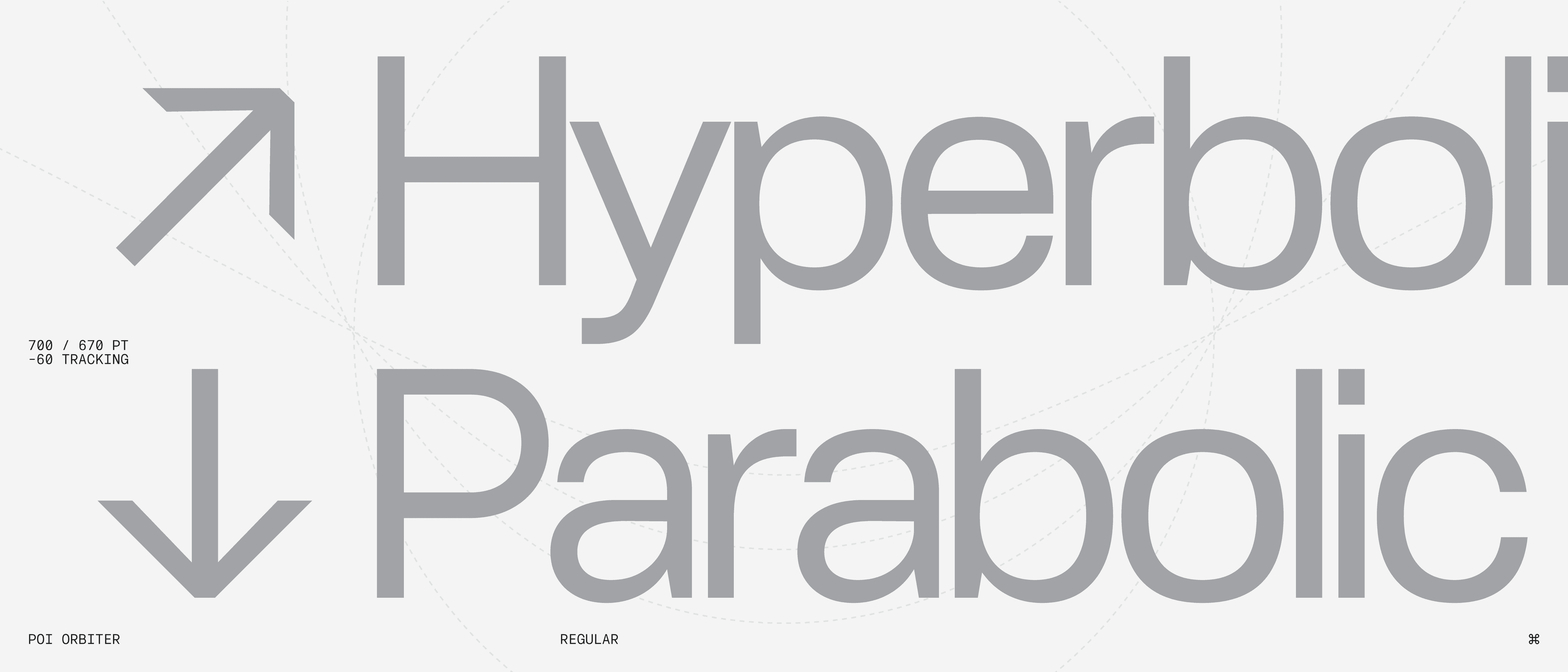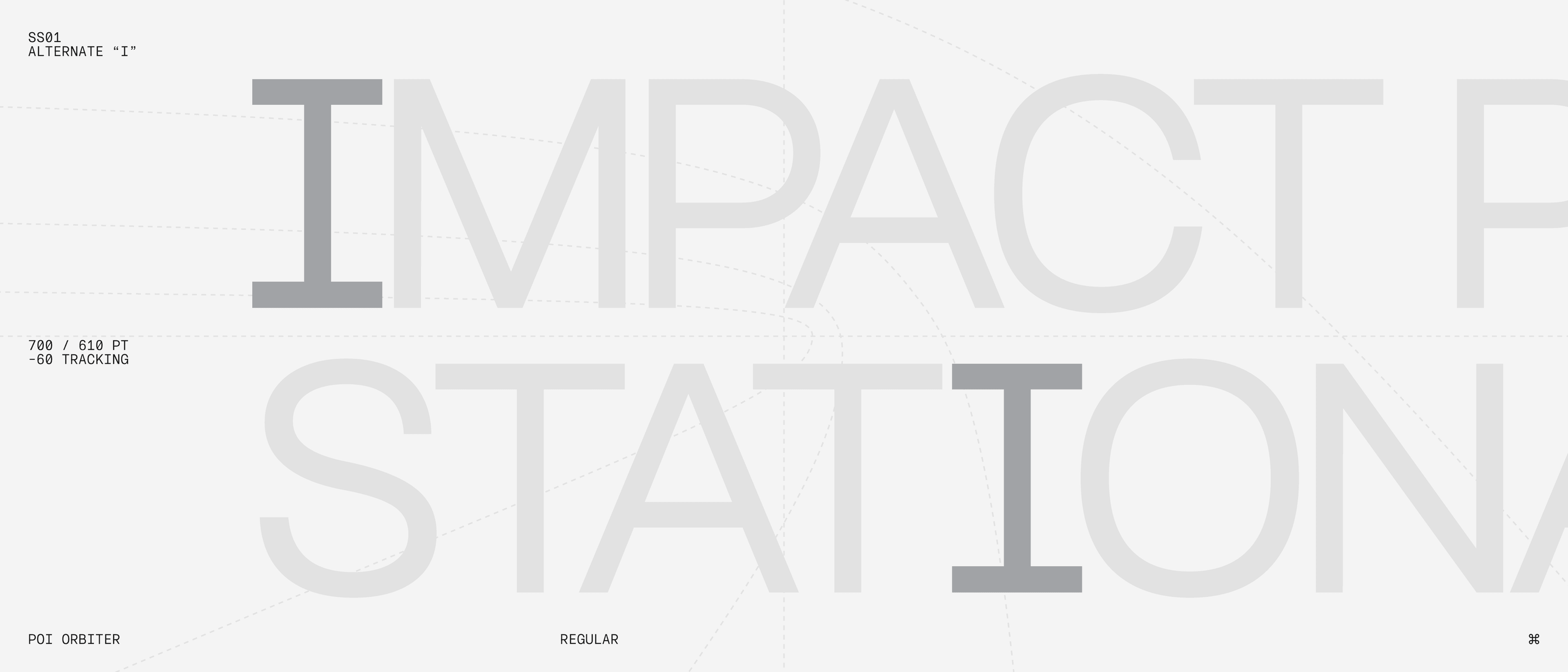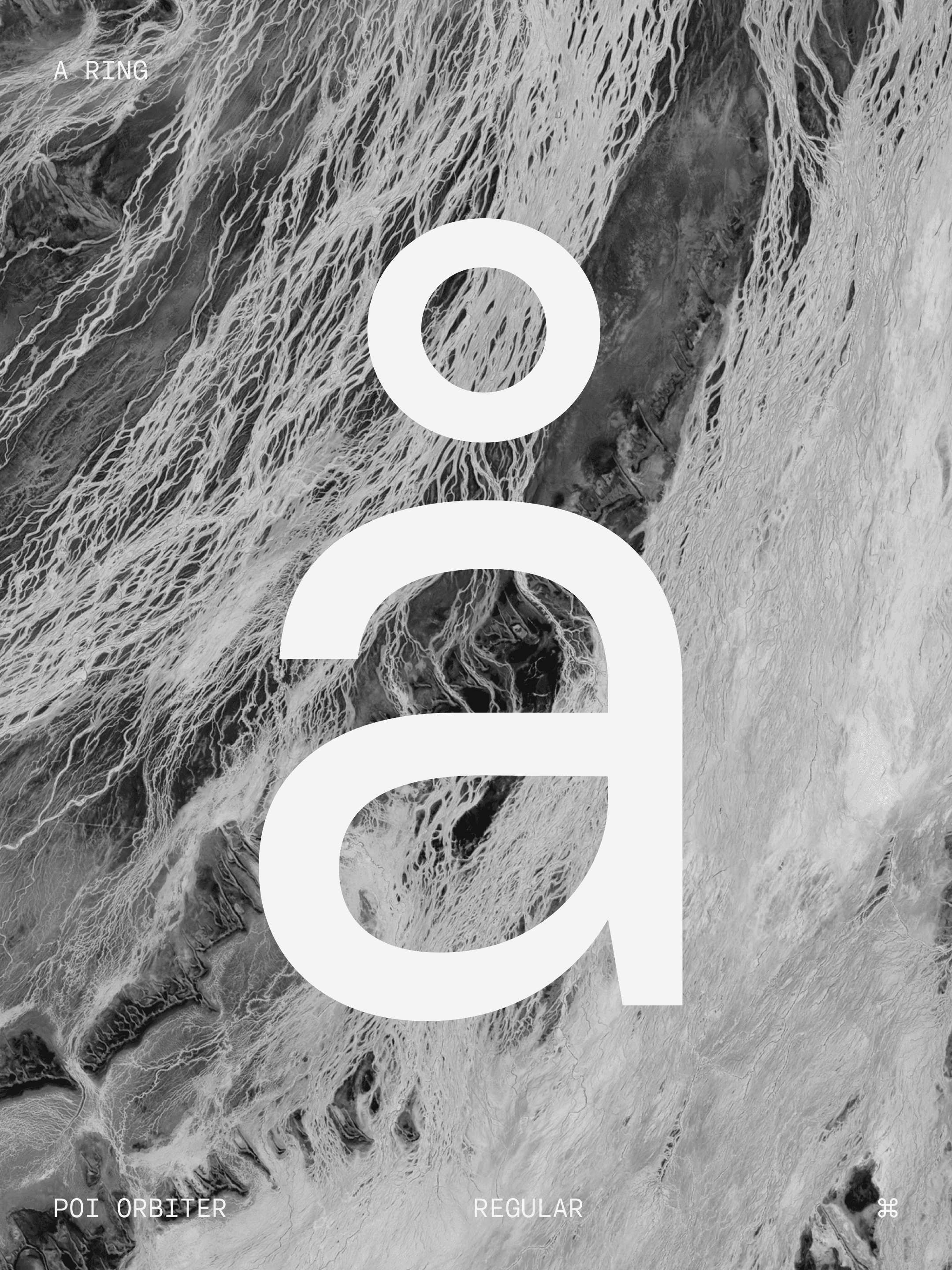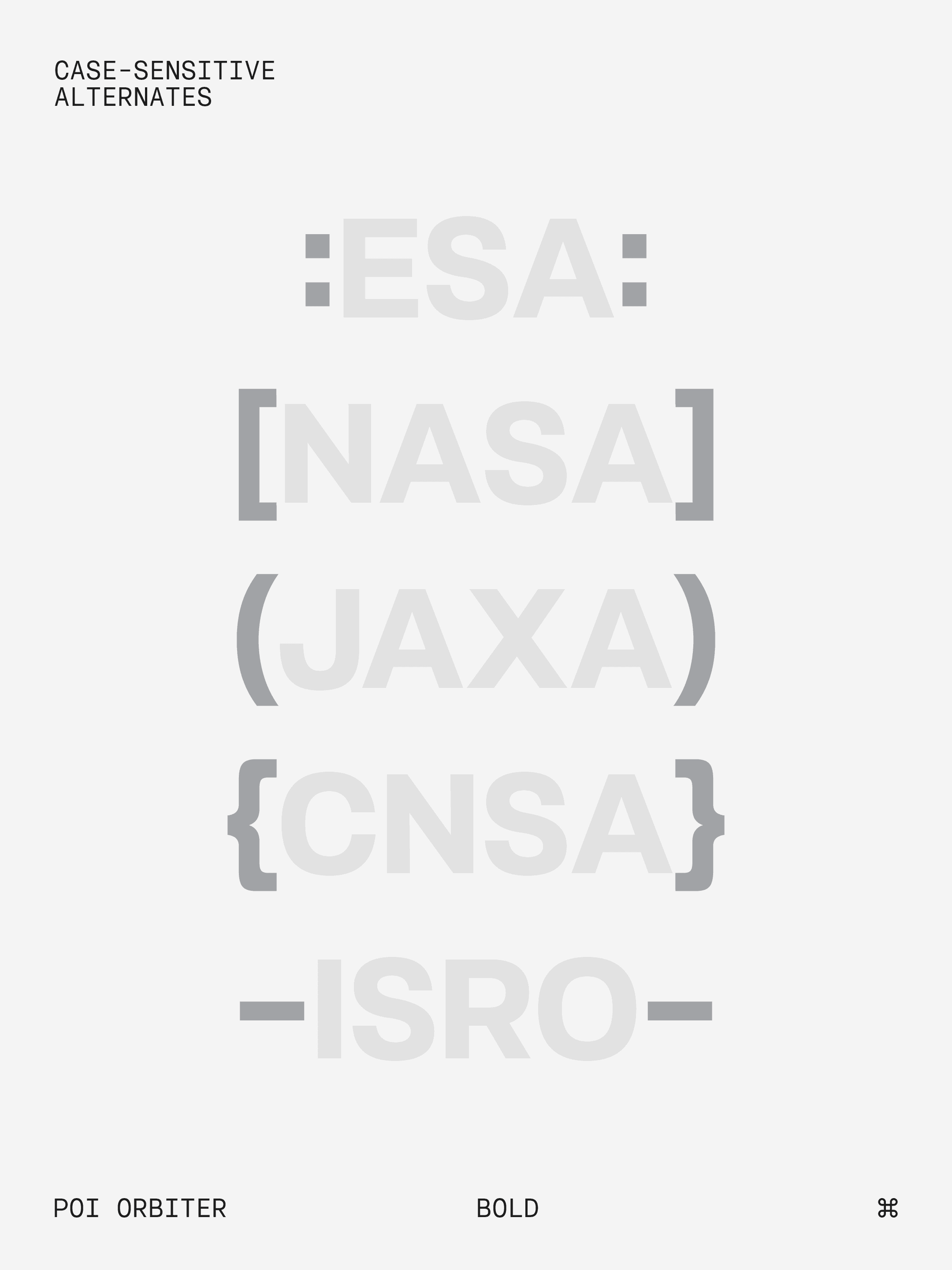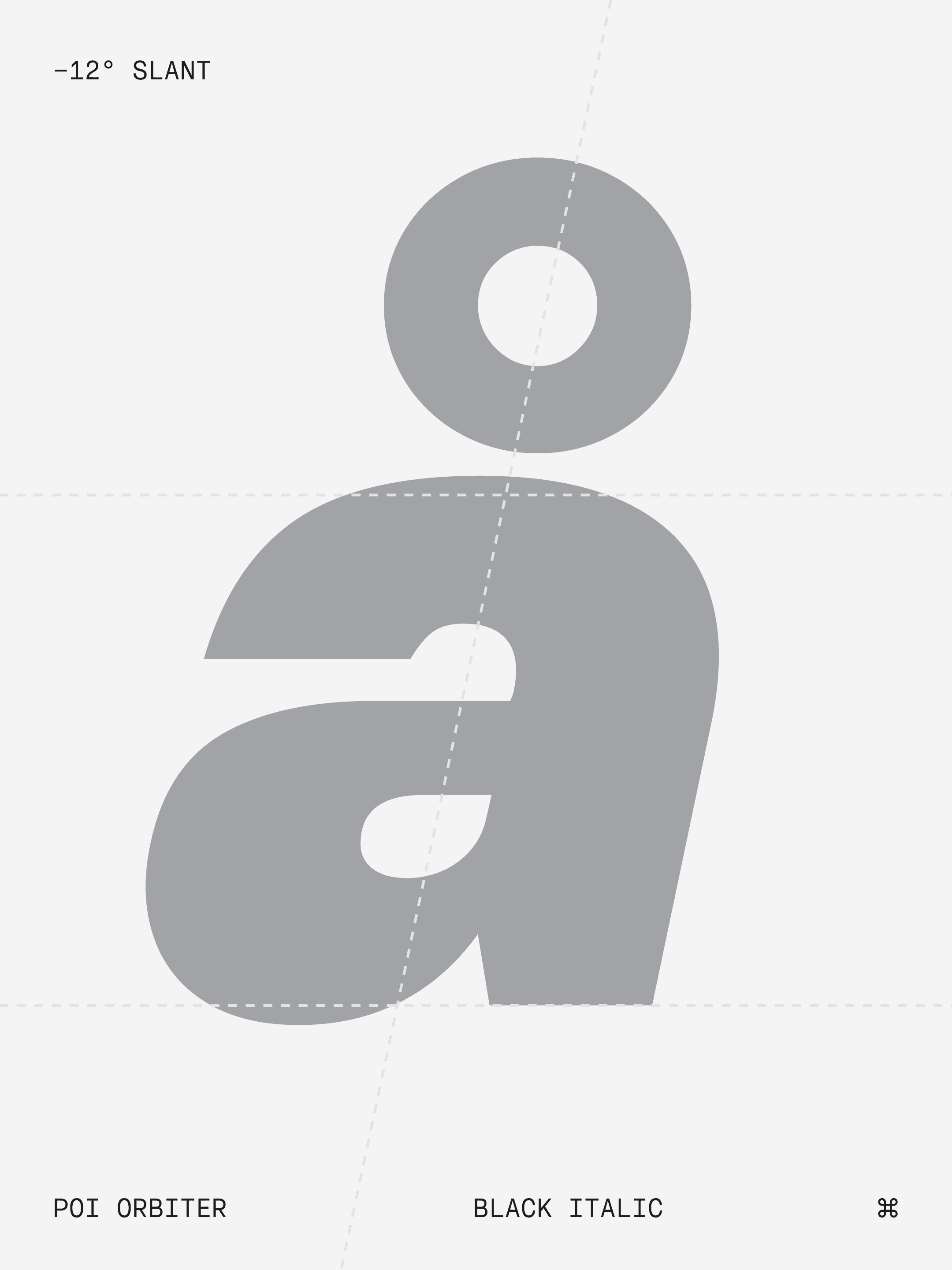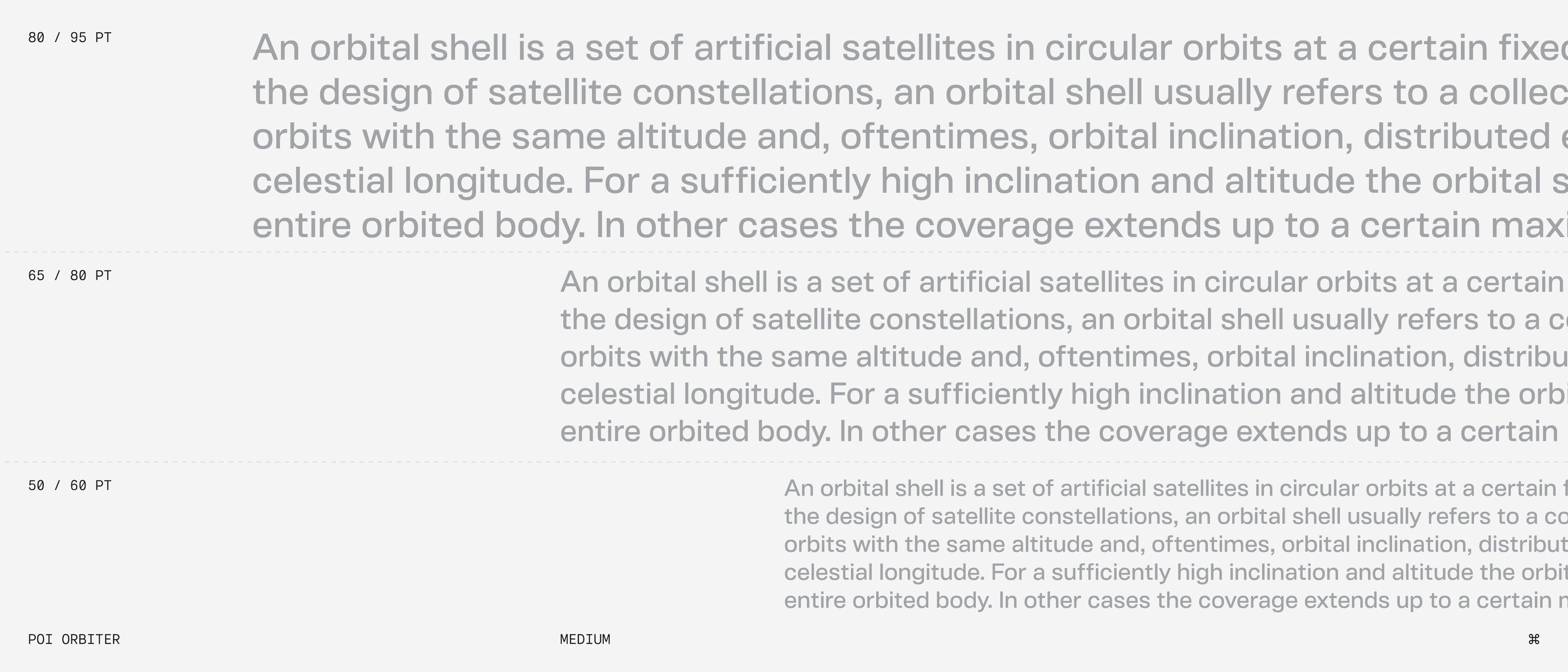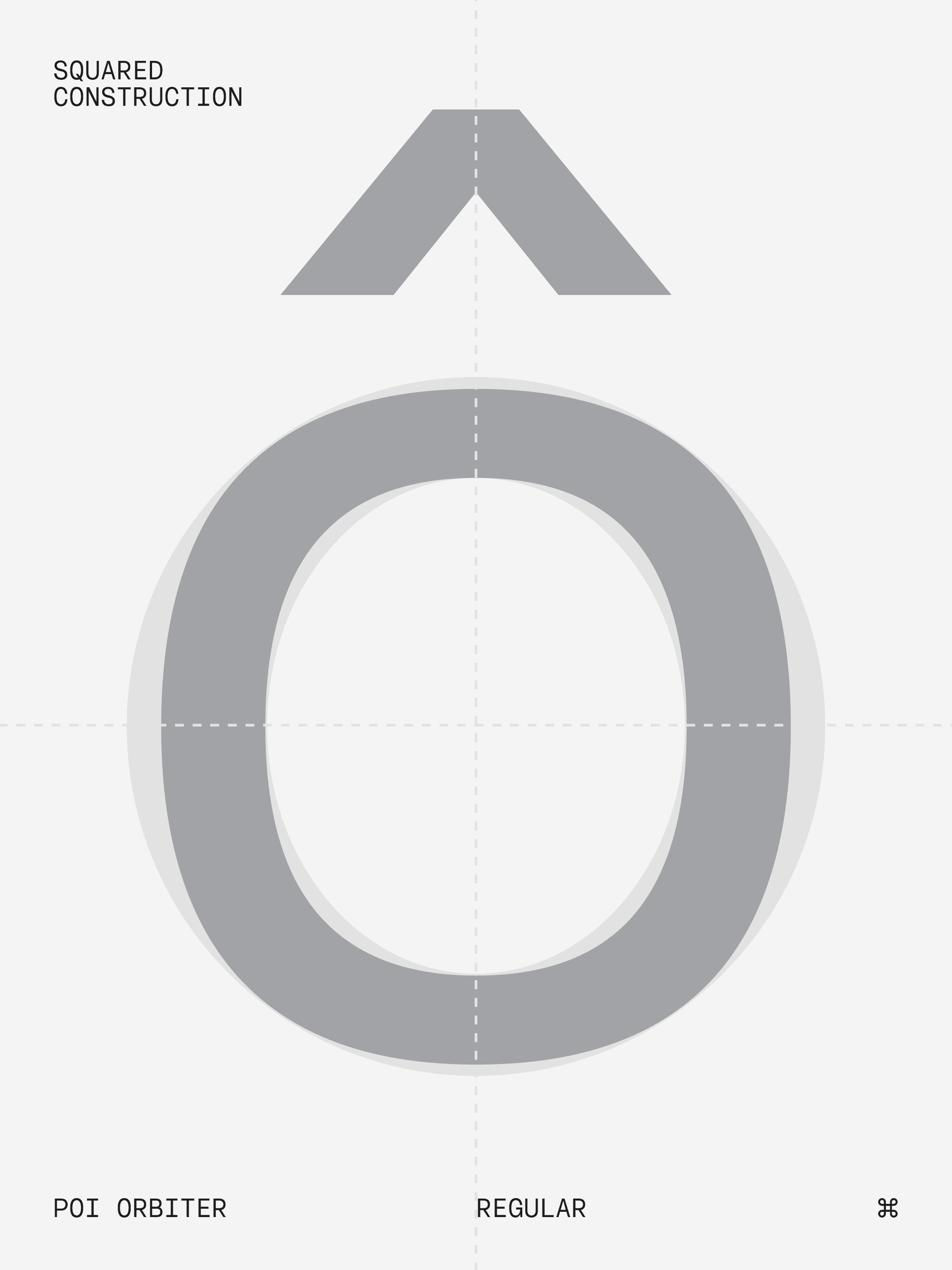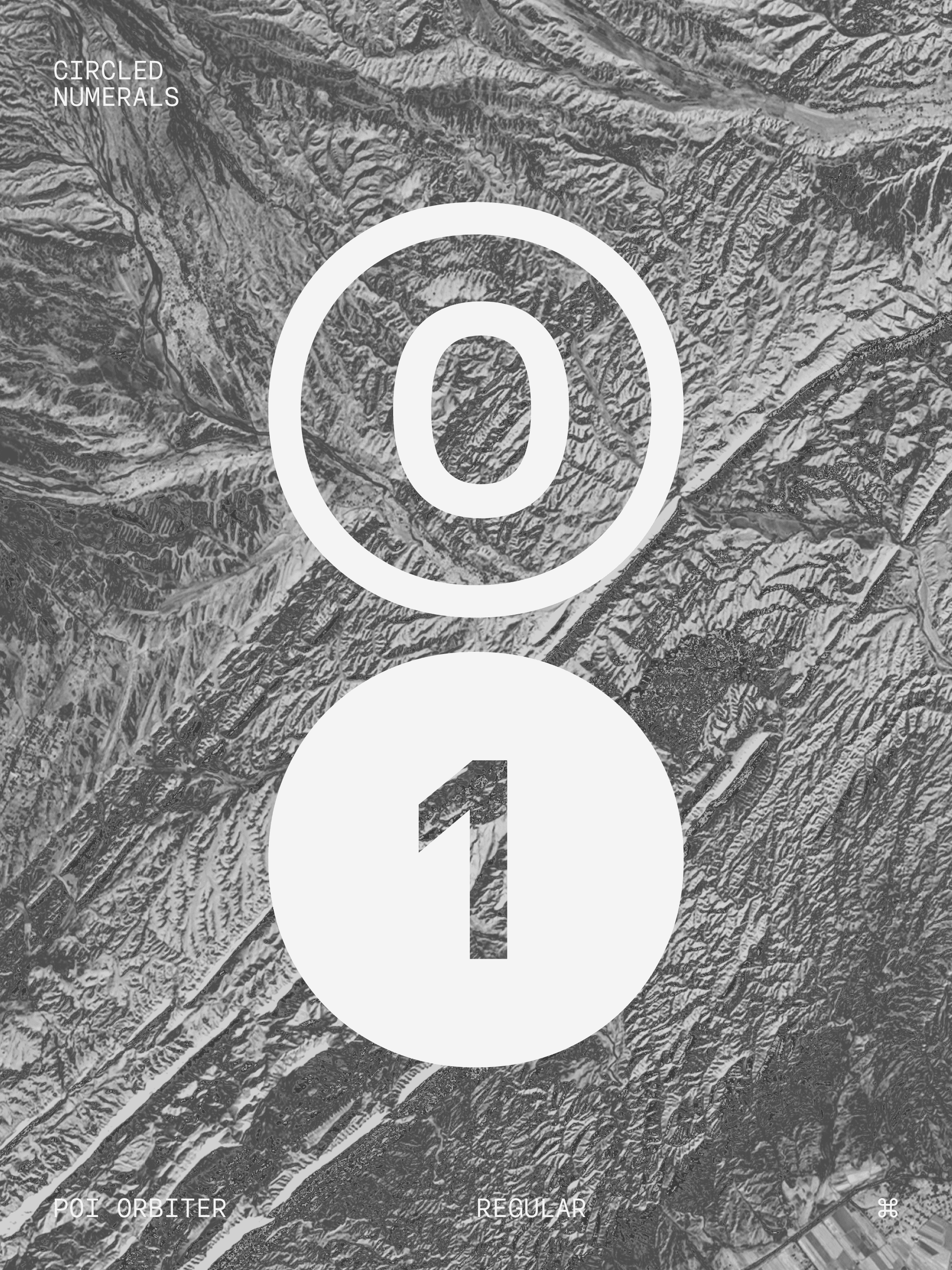
Orbiter
Channeling the spirit of neo-grotesque typefaces before it, POI Orbiter draws inspiration from early space exploration and the industrial design language that defined it. Useful across a broad range of applications, this font is best suited for long-form and short-form text.